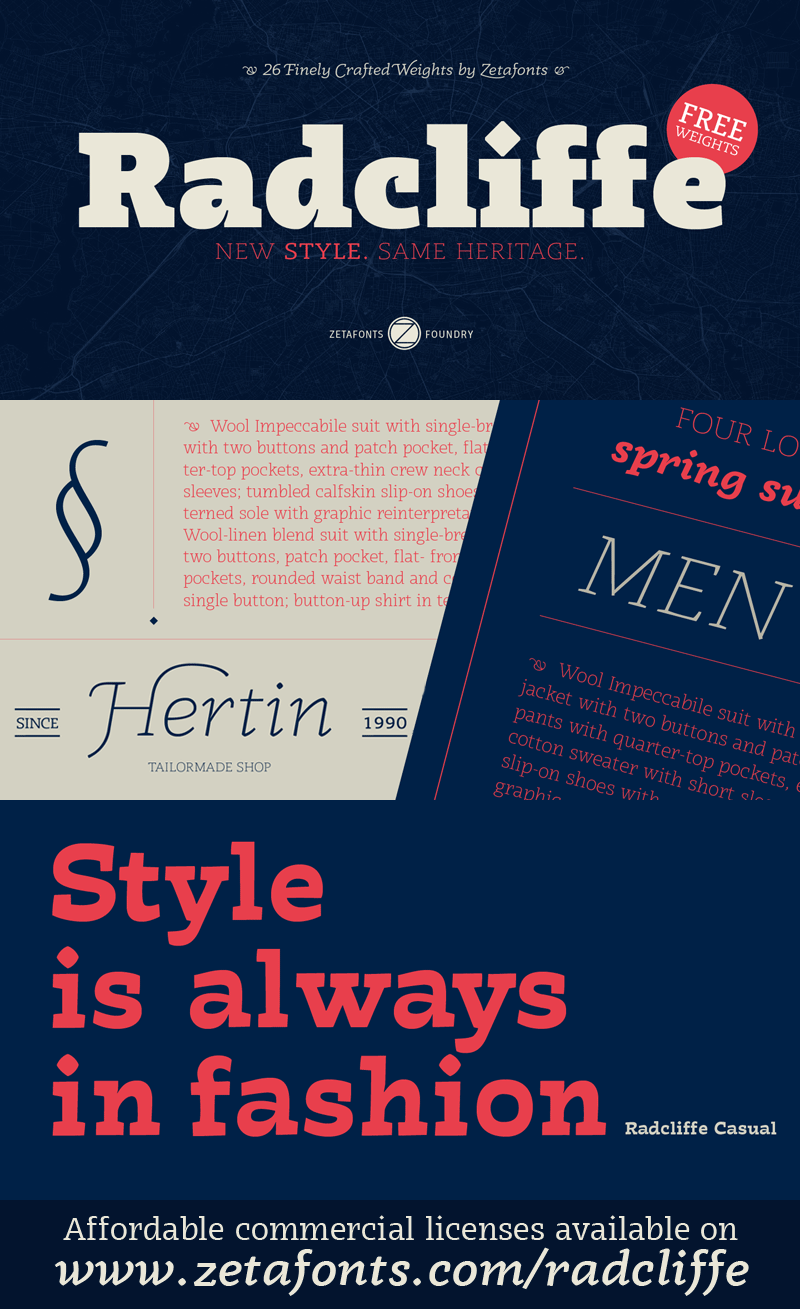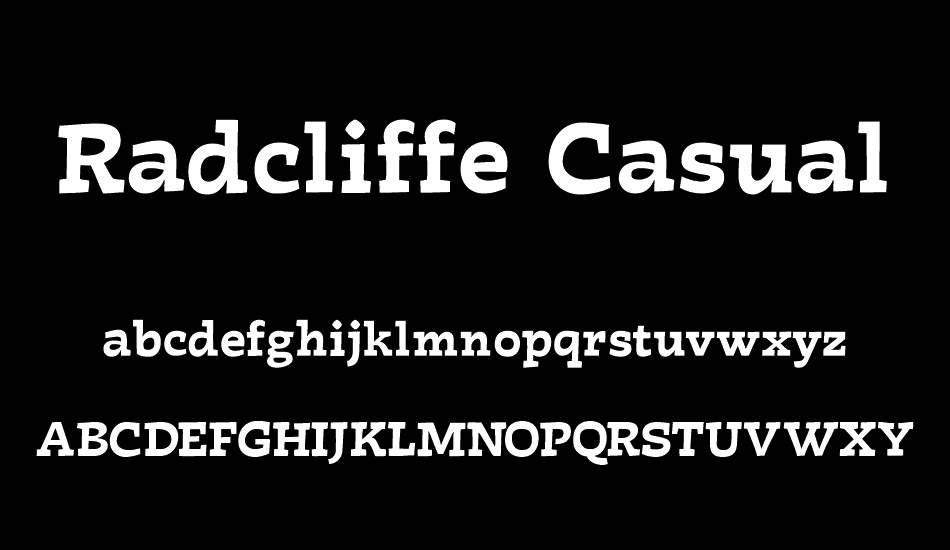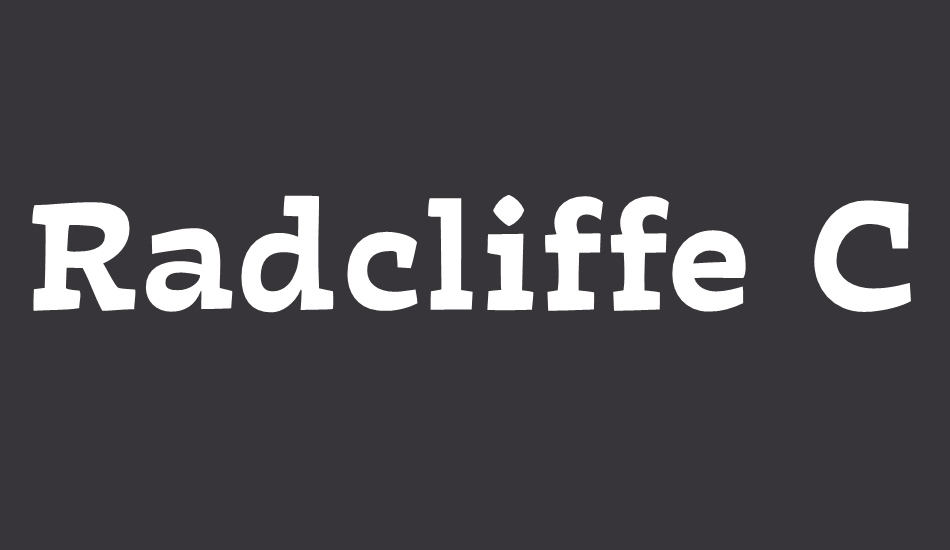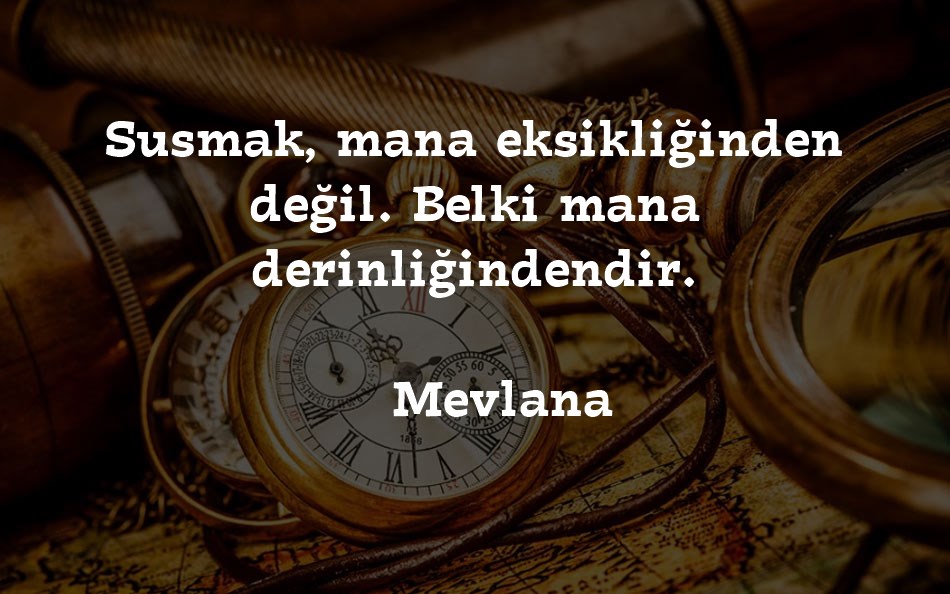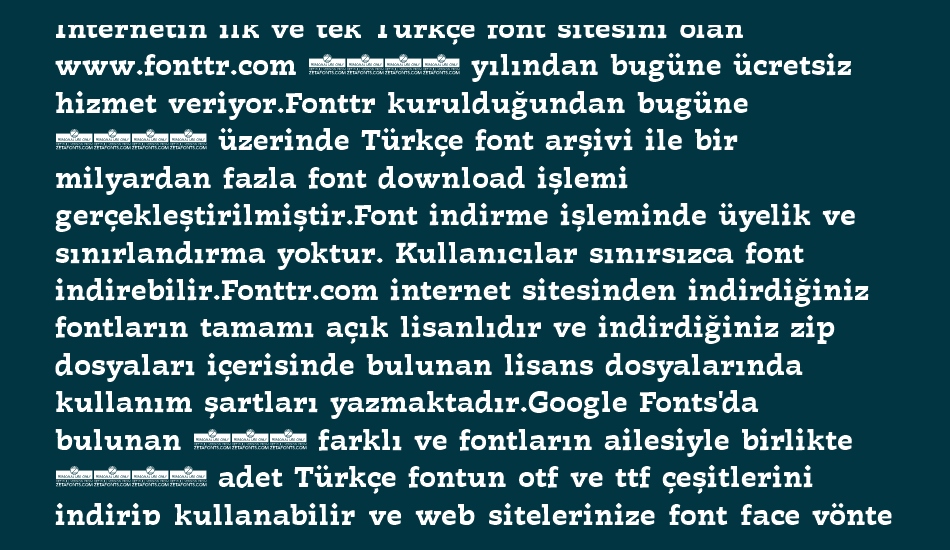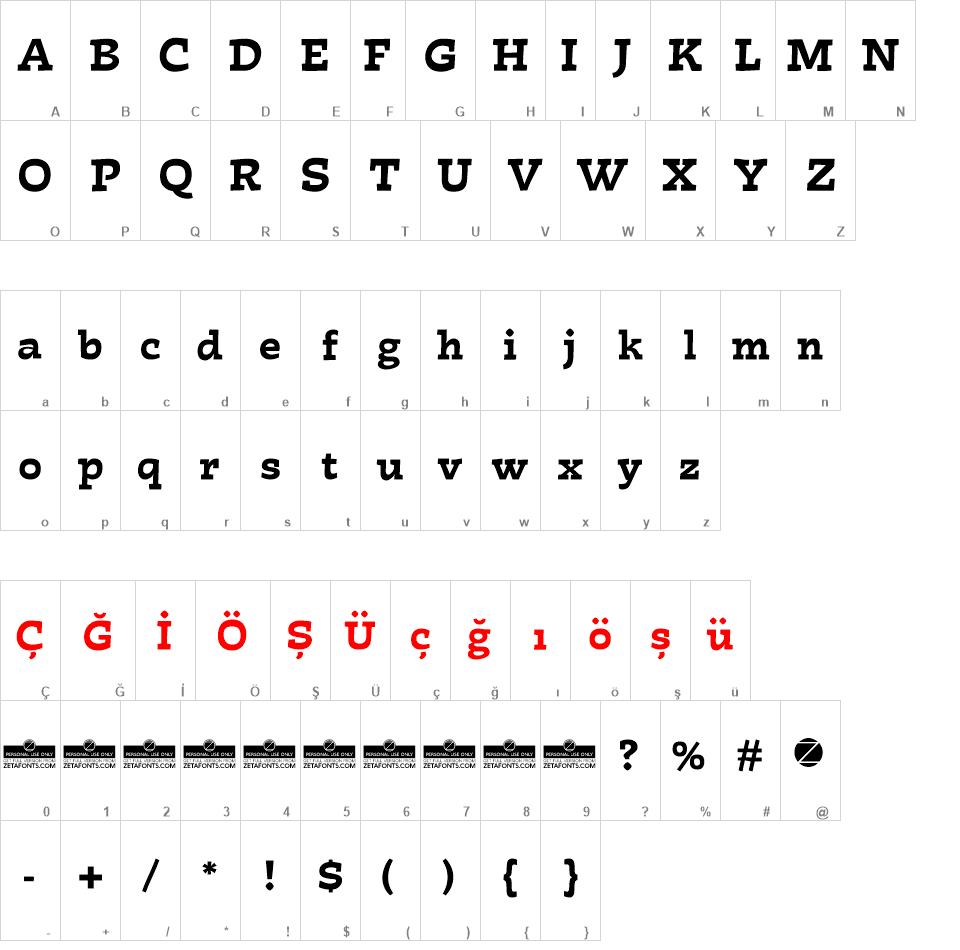
Radcliffe font
Radcliffe is a typeface family designed in 2018 by Cosimo Lorenzo Pancini and Andrea Tartarelli, as a reinvention of traditional clarendon design in search of a "contemporary classic" typeface look. Tailor made for elegance, Radcliffe features the strong bracketed serifs, vertical stress, and little contrast of clarendons, refined with a humanist touch and a calligraphic approach, obvious in the italics.
Primarily intended as a display typeface with a wide range of finely-tuned weights for editorial and logo-design uses, Radcliffe has been complemented by Radcliffe Text, developed in five weights with a taller x-height and slightly condensed proportions, allowing for maximum readablity in long texts on the web and at small size.
The family also includes the two funky weights of Radcliffe Casual, designed with a slight reverse contrast aesthetics, perfect for your Country Club activities. All Radcliffe fonts include full open type features with stylistic alternates, discretionary ligatures, positional number forms, swash forms (in italics) and full language coverage fo +70 languages using latin and cyrillic alphabets
Radcliffe Casual font